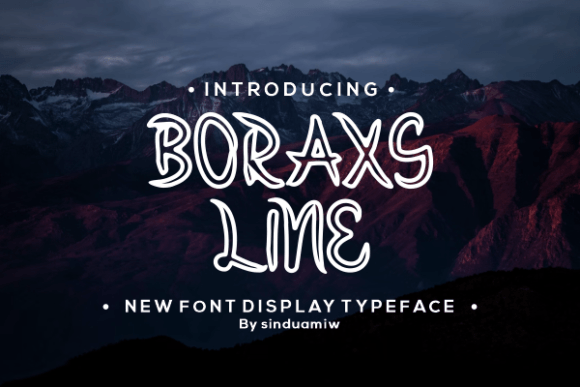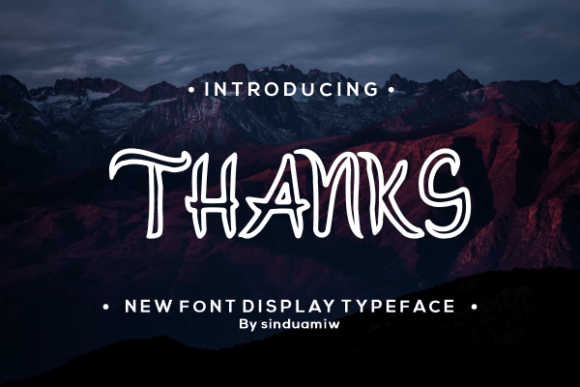
Introducing Boraxs Line Font: The Ultimate Display Font for Creative Projects
Are you looking for a unique and stylish font to elevate your design projects? Look no further than Boraxs Line Font, a very cool outlined display font that’s perfect for adding a personal touch to your branding projects, business cards, posters, flyers, and more. In this article, we’ll explore the features and benefits of Boraxs Line Font, and why it’s a must-have for designers and crafters.
What is Boraxs Line Font?
Boraxs Line Font is a modern and trendy display font that’s designed to make a statement. Its outlined style gives it a distinctive look that’s both elegant and edgy. The font is perfect for use in a variety of creative projects, from branding and advertising to packaging and signage.
Key Features of Boraxs Line Font
- Outlined style: Boraxs Line Font features a unique outlined style that sets it apart from other fonts.
- Display font: This font is specifically designed for use in display settings, such as headings and titles.
- Personal feel: Boraxs Line Font is perfect for adding a personal touch to your design projects.
- Versatile: This font can be used in a wide range of creative projects, from branding and advertising to packaging and signage.
Benefits of Using Boraxs Line Font
So why choose Boraxs Line Font for your design projects? Here are just a few benefits of using this amazing font:
- Adds a personal touch: Boraxs Line Font is perfect for adding a personal feel to your design projects.
- Stand out from the crowd: The unique outlined style of Boraxs Line Font ensures that your design projects will stand out from the crowd.
- High-quality design: Boraxs Line Font is designed to high standards, ensuring a professional finish for your design projects.
How to Use Boraxs Line Font
Using Boraxs Line Font is easy. Here are a few tips to get you started:
- Branding projects: Use Boraxs Line Font to add a personal touch to your branding projects, such as logos and business cards.
- Posters and flyers: This font is perfect for use in posters and flyers, where you want to grab attention and make a statement.
- Packaging and signage: Boraxs Line Font can also be used in packaging and signage, where you want to add a professional touch.
Tips and Tricks for Working with Boraxs Line Font
Here are a few tips and tricks for getting the most out of Boraxs Line Font:
- Experiment with colors: Try out different colors and color combinations to really make Boraxs Line Font pop.
- Play with sizes: Experiment with different font sizes to create visual interest and hierarchy in your design projects.
- Combine with other fonts: Boraxs Line Font can be paired with other fonts to create a unique and stylish look.
| Font Name | Boraxs Line Font |
| Author | sinduamiw |
In conclusion, Boraxs Line Font is a versatile and stylish display font that’s perfect for adding a personal touch to your design projects. With its unique outlined style and high-quality design, this font is sure to make a statement. Whether you’re a designer or crafter, Boraxs Line Font is a must-have font to add to your collection.